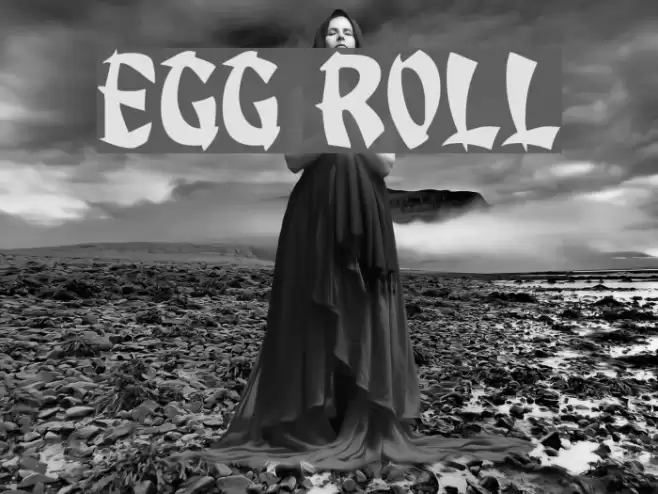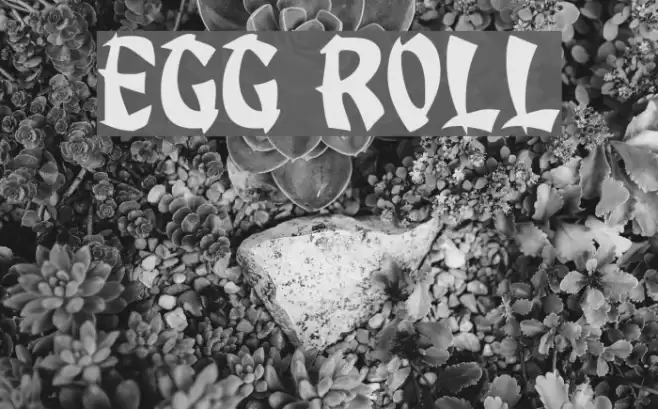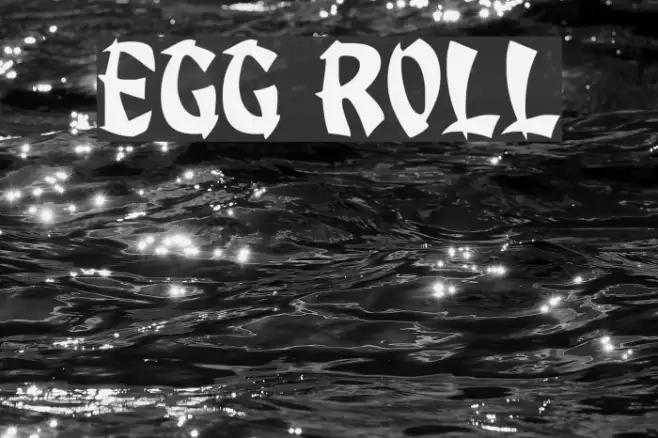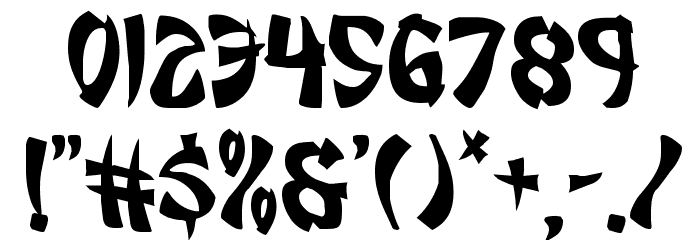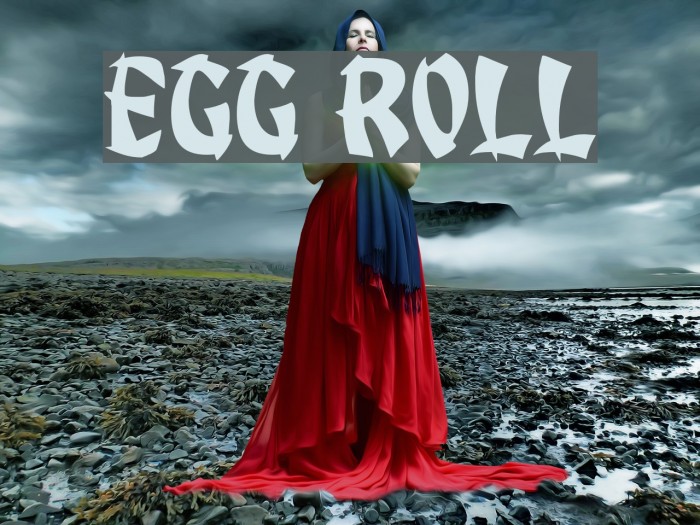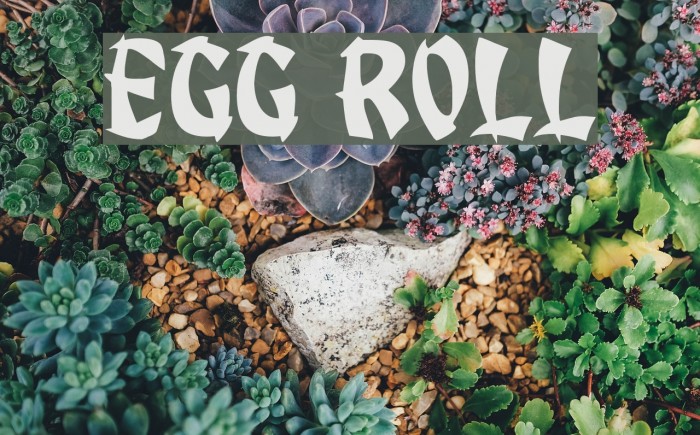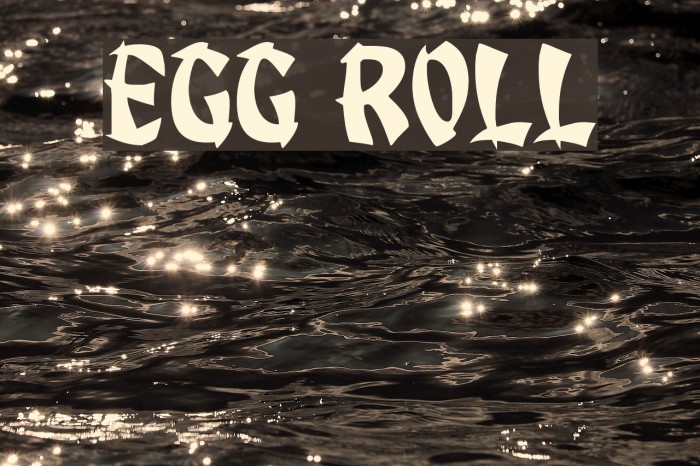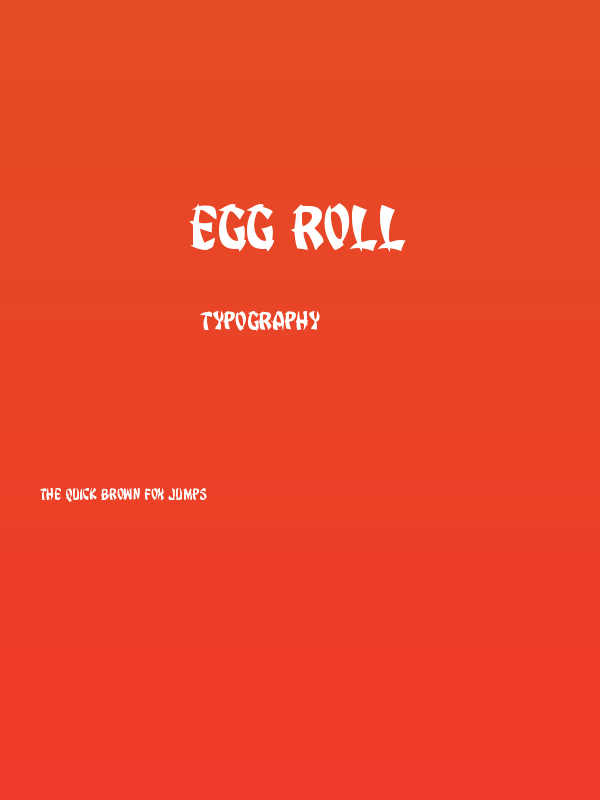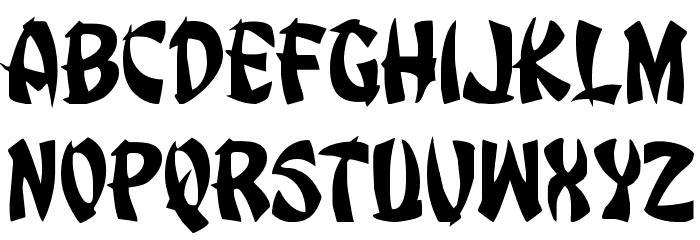
Egg Roll Font
Egg Roll Description
This font features a bold and dynamic style with a playful, graffiti-like appearance. The characters are thick and have a slightly irregular form, giving them a hand-drawn feel. The strokes are bold, with sharp angles and curves that create a sense of movement and energy. The uppercase and lowercase letters maintain a consistent style, while the numbers and special characters complement the overall design. This font is eye-catching and ideal for projects that require a strong visual impact.
A bold, graffiti-inspired font with dynamic and playful characters from Uncategorized fonts.
- Proposed Projects: Ideal for street art designs, posters, album covers, and branding that requires a bold statement.
- Overall Style: Modern, Decorative